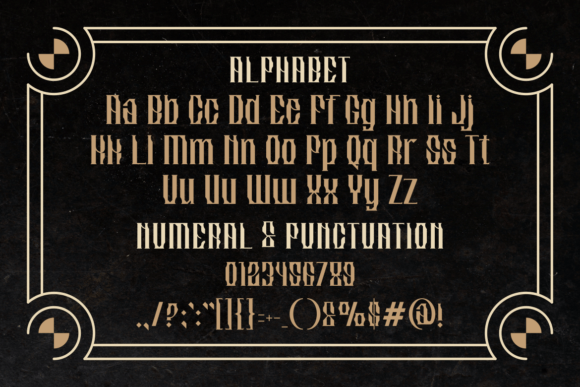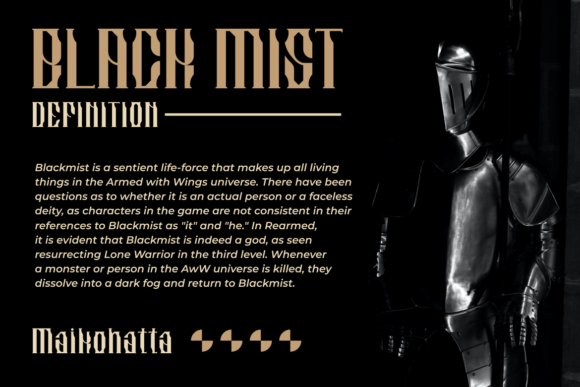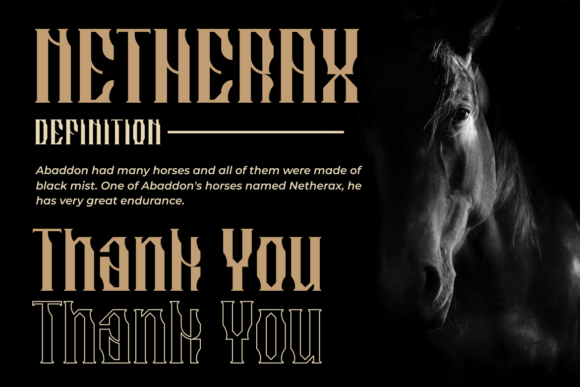
Discover the Edgy Charm of Crused Abaddon Font
I’ll never forget the design project that led me to Crused Abaddon Font. I was working on a branding campaign for a new gaming community, and I needed a font that would capture the essence of their bold and edgy vibe. After hours of scouring font libraries and marketplaces, I stumbled upon Crused Abaddon – a cool, uniquely-shaped display font that instantly resonated with the project’s aesthetic. Masterfully designed to become a true favorite, this font has the potential to bring each of your creative ideas to the highest level!
An Honest Review of Crused Abaddon Font
- ✨ Unique and distinctive character shapes that add an edgy touch to any design
- ✅ Excellent for display purposes, such as titles, headings, and logos
- ⚡️ Highly legible, even at smaller sizes (when used for short texts)
- 🎨 Versatile and can be used for various design projects, from gaming to tech and beyond
While Crused Abaddon is an amazing font, there are a few things to keep in mind:
- 🤔 May not be the best choice for body text or long paragraphs, as its uniqueness might get lost
- ⚠️ Some characters, like the lowercase ‘l’, might be a bit tricky to read when used in certain contexts
A Practical Guide to Using Crused Abaddon Font
- Experiment with OpenType features, such as ligatures and stylistic alternates, to add more flair to your text
- Explore the font’s glyphs and OpenType features by navigating to the “Character” panel
- Use the font’s stylistic alternates and ligatures to add visual interest to your text
The Backstory Behind Crused Abaddon Font
According to the font’s designer, Crused Abaddon was inspired by the darker corners of the gaming world. The designer aimed to create a font that would reflect the edgy, bold spirit of gamers and tech enthusiasts. With its unique character shapes and highly legible design, Crused Abaddon has become a favorite among designers and creatives.
Q: What type of projects is Crused Abaddon best suited for?
A: Crused Abaddon excels in display purposes, such as titles, headings, and logos, particularly in gaming, tech, and futuristic designs.
Q: Is Crused Abaddon available in different weights or styles?
A: Currently, Crused Abaddon is available in a single weight. However, the designer may release additional weights or styles in the future.